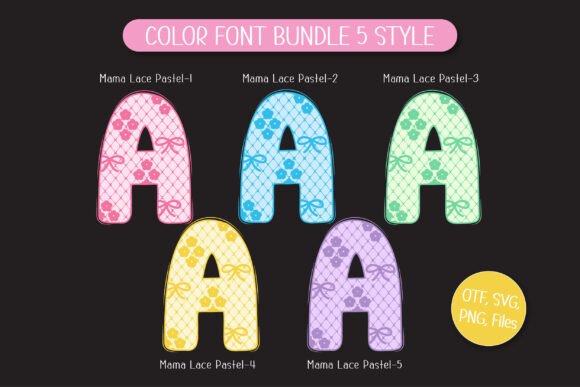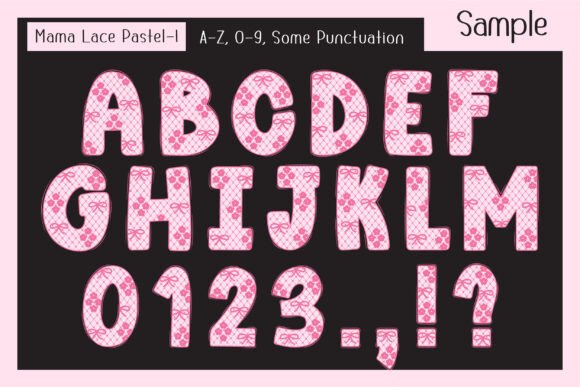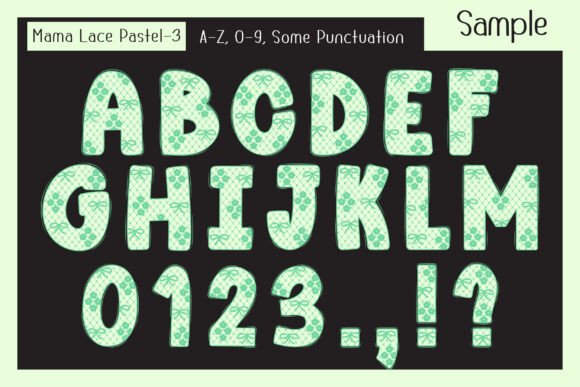
Mama Lace Pastel Font
Introducing “Mama Lace Pastel” a charming color font inspired by the original Mama Lace, now enhanced with a beautiful palette of 5 pastel colors. Designed to reflect the warmth, tenderness, and intricately woven bonds between a mother and child, this font embodies the elegance of lace with a soft and delicate touch.
Complete with 20 matching Lace Doodle Cliparts, it’s perfect for Mother’s Day posters, heartfelt quotes, t-shirts, custom names, DIY craft projects, and more. Whether you’re crafting a sentimental gift or a personalized creation, Mama Lace Pastel adds a gentle, sophisticated, and heartfelt feel to any design.